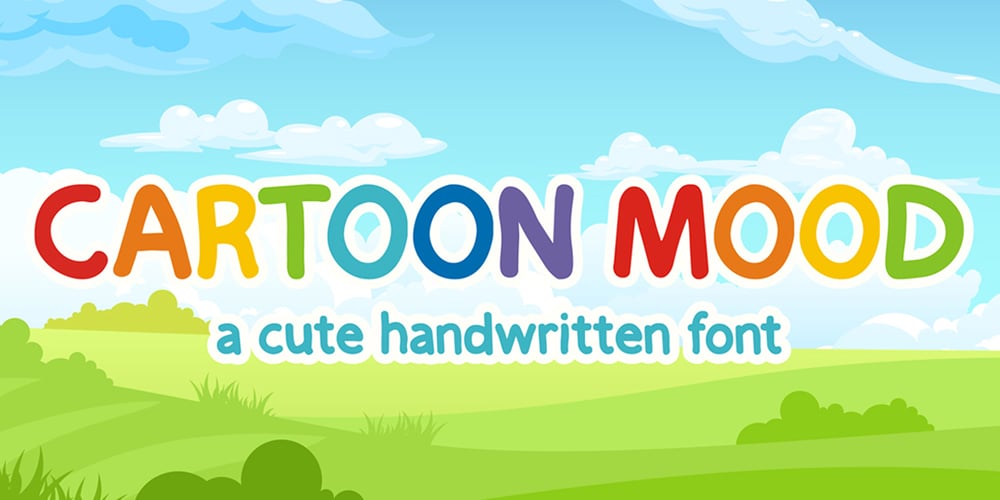
Cartoon Mood Font Family was designed by Ely Novik and published by Elysart. Cartoon Mood contains 1 styles and family package options. Introducing Cartoon Mood – a cute handwritten font by ElysartThis font is perfect for children’s books, logos, greeting cards, animation designs, clothes, posters, krafting, stickers, toys, and more!